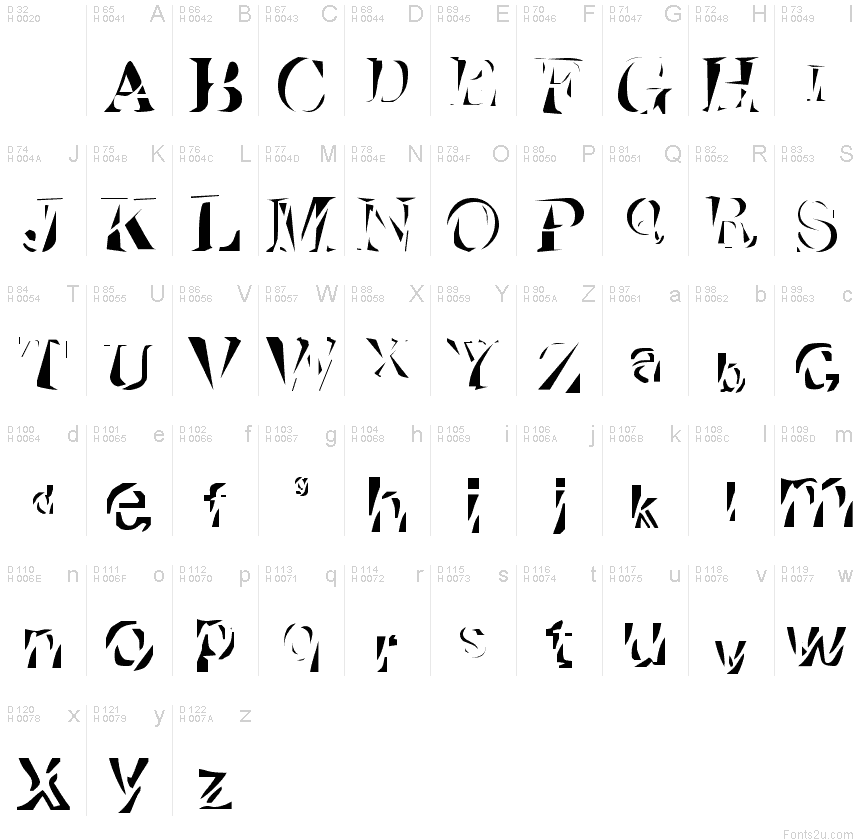
Cutted
Cutted font is a free distorted display font that looks like it’s been slashed out of black paper with a razor. The chunky, almost calligraphic curves are abruptly chopped into angular shards, leaving sharp gaps that flicker between figure and ground. That broken rhythm gives every word a tense, kinetic energy, as if the letters are glitching mid‑motion.
Using Cutted, titles instantly feel edgy and experimental, which works beautifully for horror posters, underground party flyers, game logos, zine covers, album art, and glitchy motion graphics. This free font wants to be big and bold; keep it for headlines and pair it with a clean geometric sans for body copy to let its sliced forms really stand out.